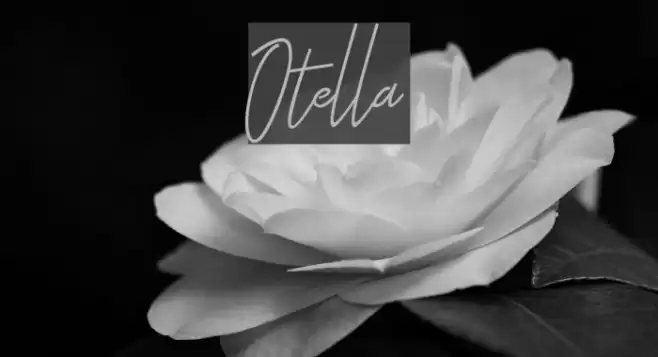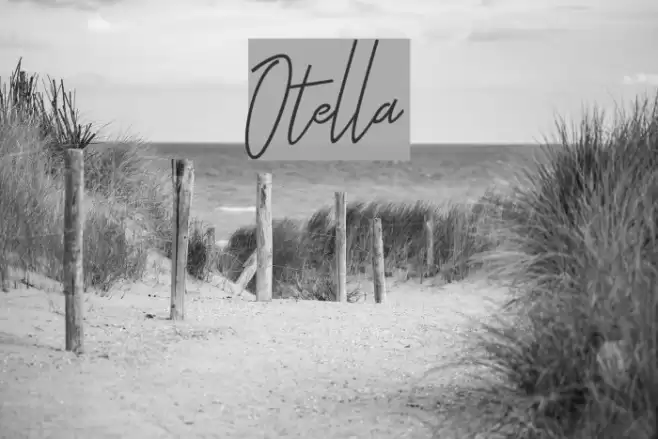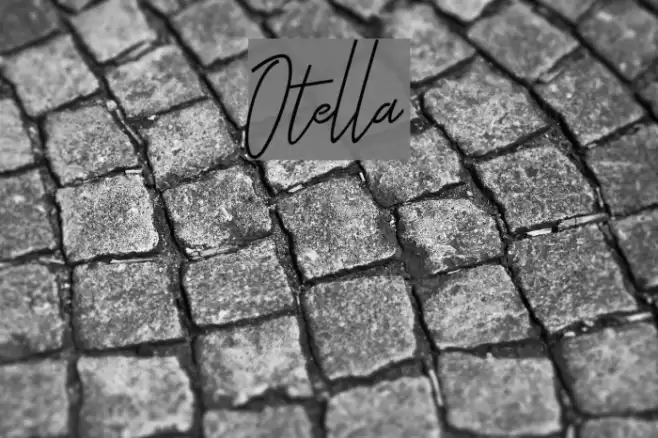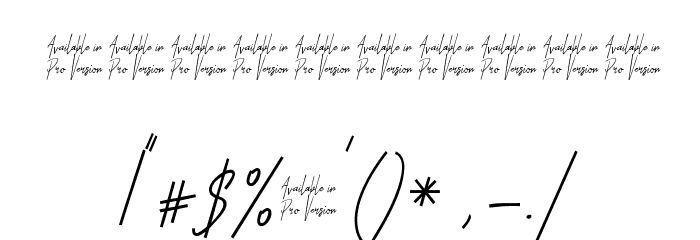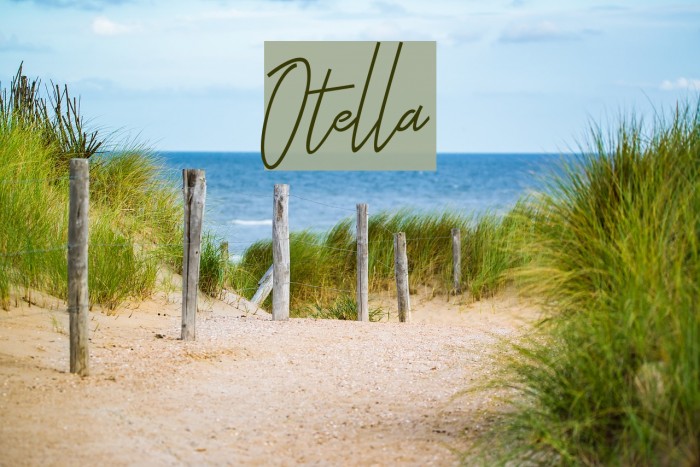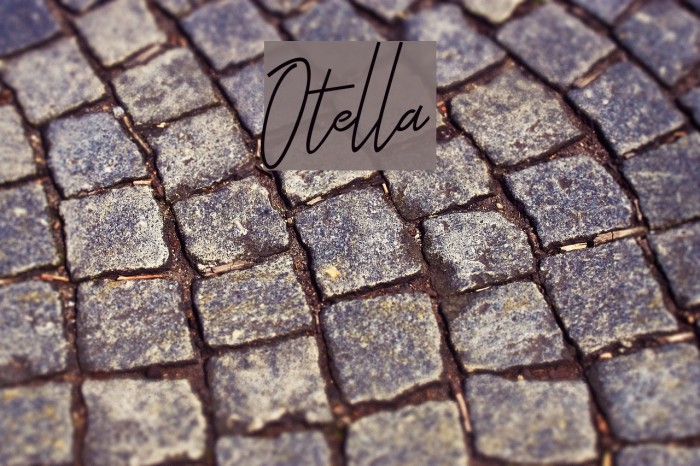
Otella
This font features a dynamic and expressive handwritten style, characterized by its elongated and slightly slanted letterforms. The strokes are fluid and continuous, giving it a natural and personal touch. The uppercase letters are bold and prominent, while the lowercase letters maintain a consistent flow, enhancing readability. The numbers and special characters are crafted with the same attention to detail, ensuring a cohesive look across all text elements. This font's unique style makes it suitable for projects that require a personal or artistic flair.
A dynamic, expressive handwritten font with elongated, fluid strokes.
- Proposed Projects: Ideal for invitations, greeting cards, personal branding, and artistic projects.
- Use Case: Logos, Headlines, Artistic projects